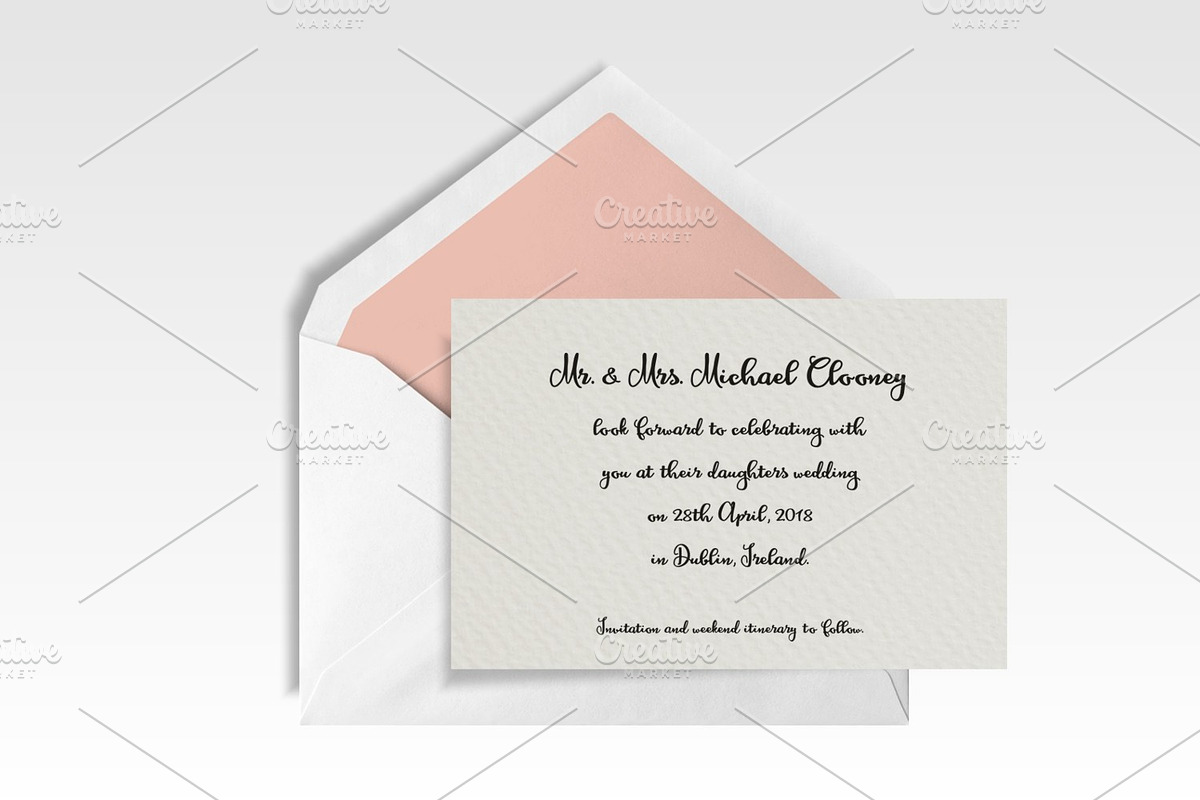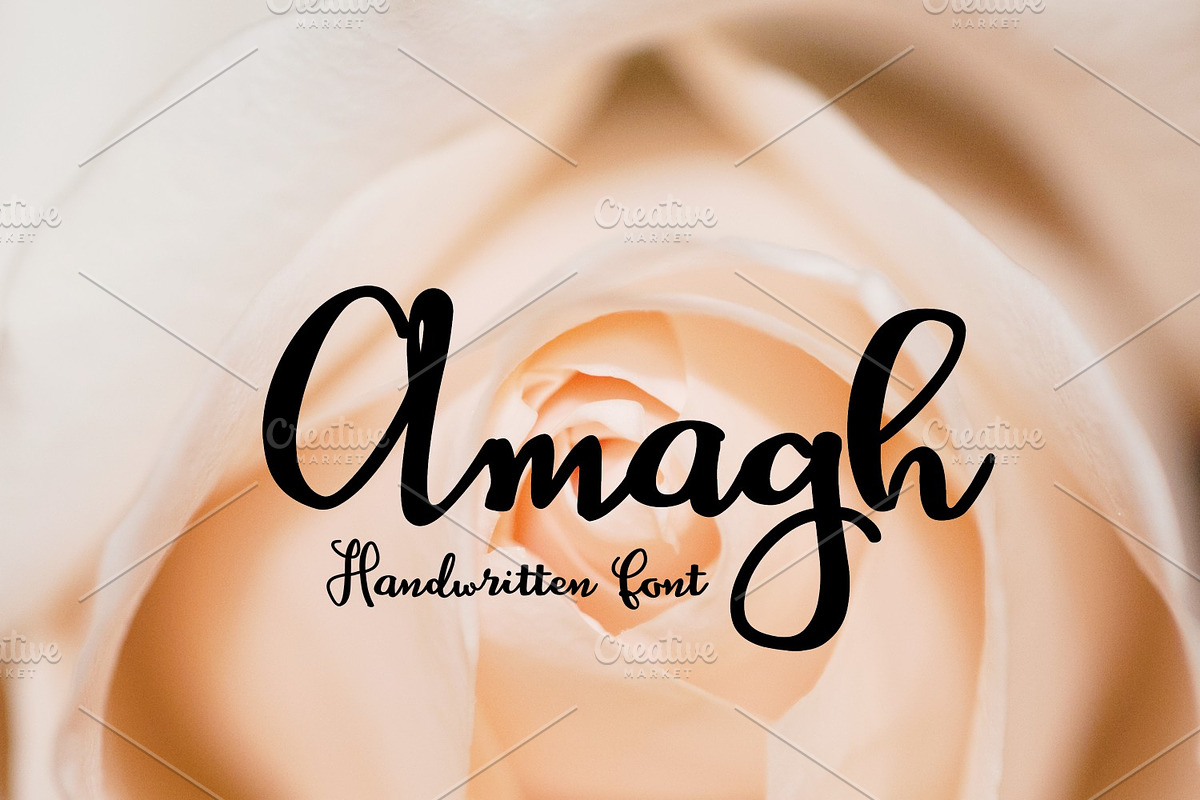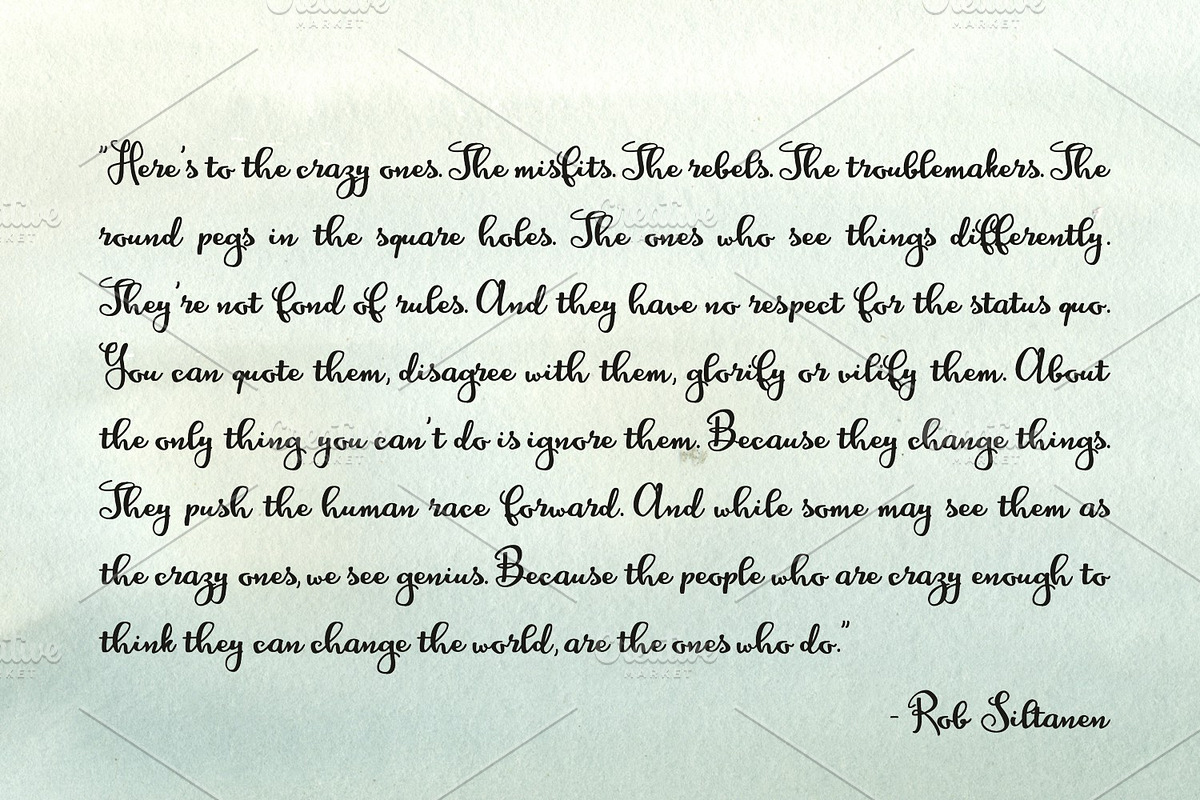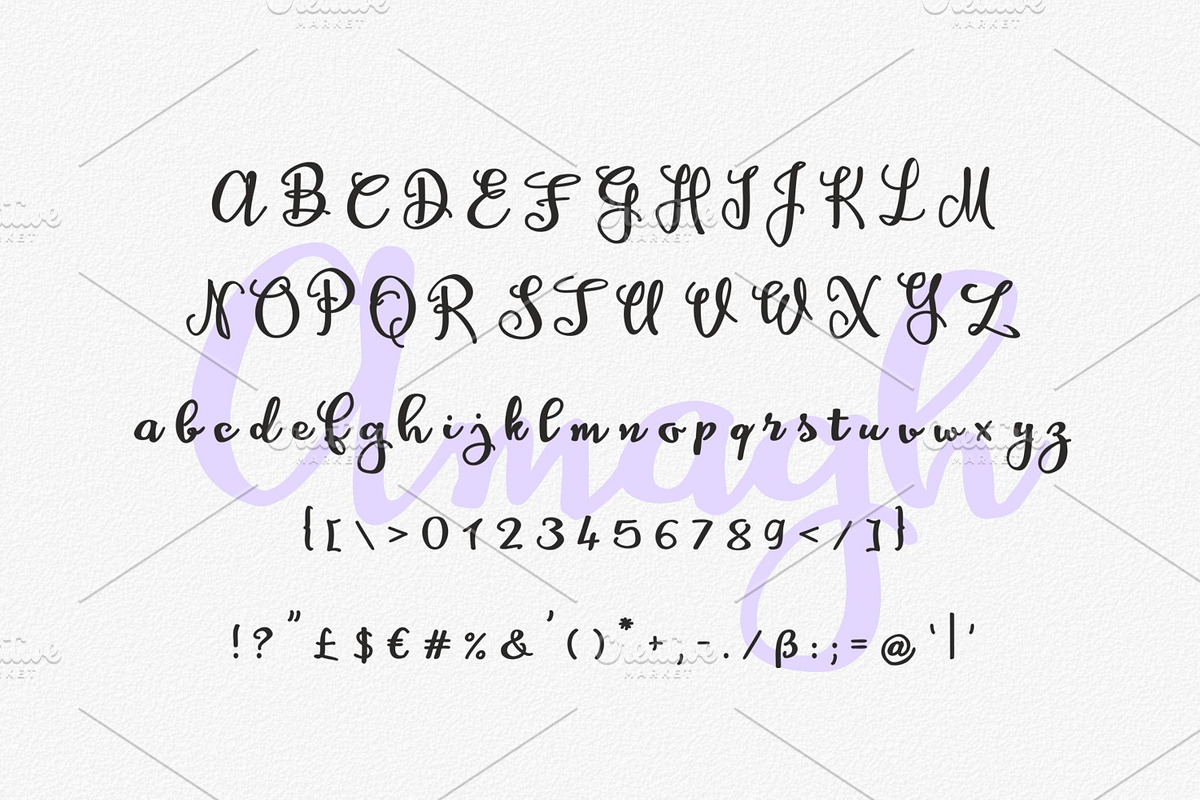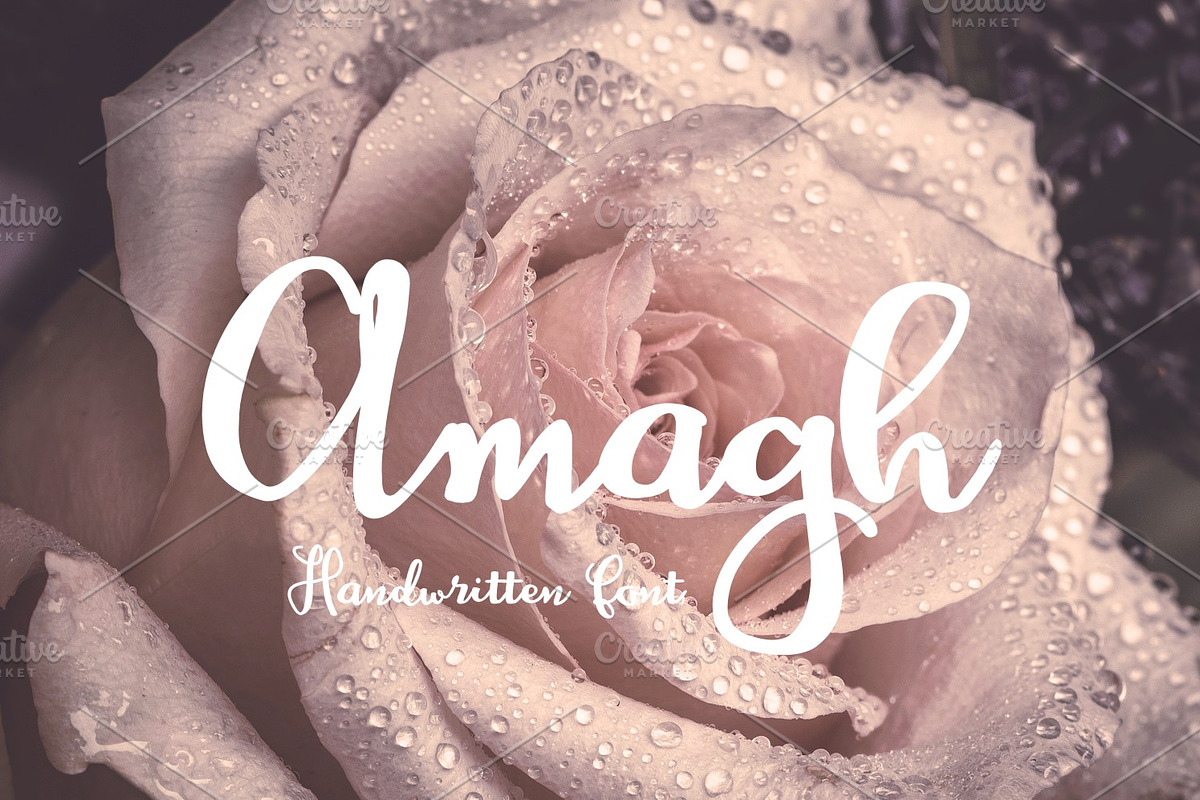
Amagh
Introducing Amagh hand written typeface. Great for wedding invitations or other stationeries.
Why Amagh is worth a look
Amagh by Digital Typeface Studio fits naturally into Branding, posters, packaging, typography.